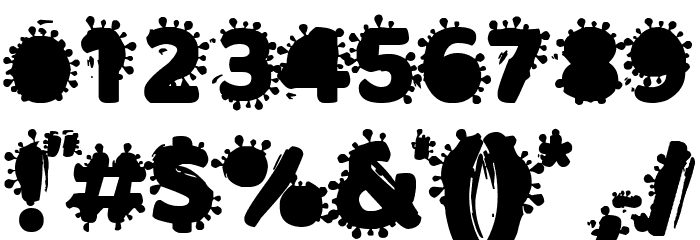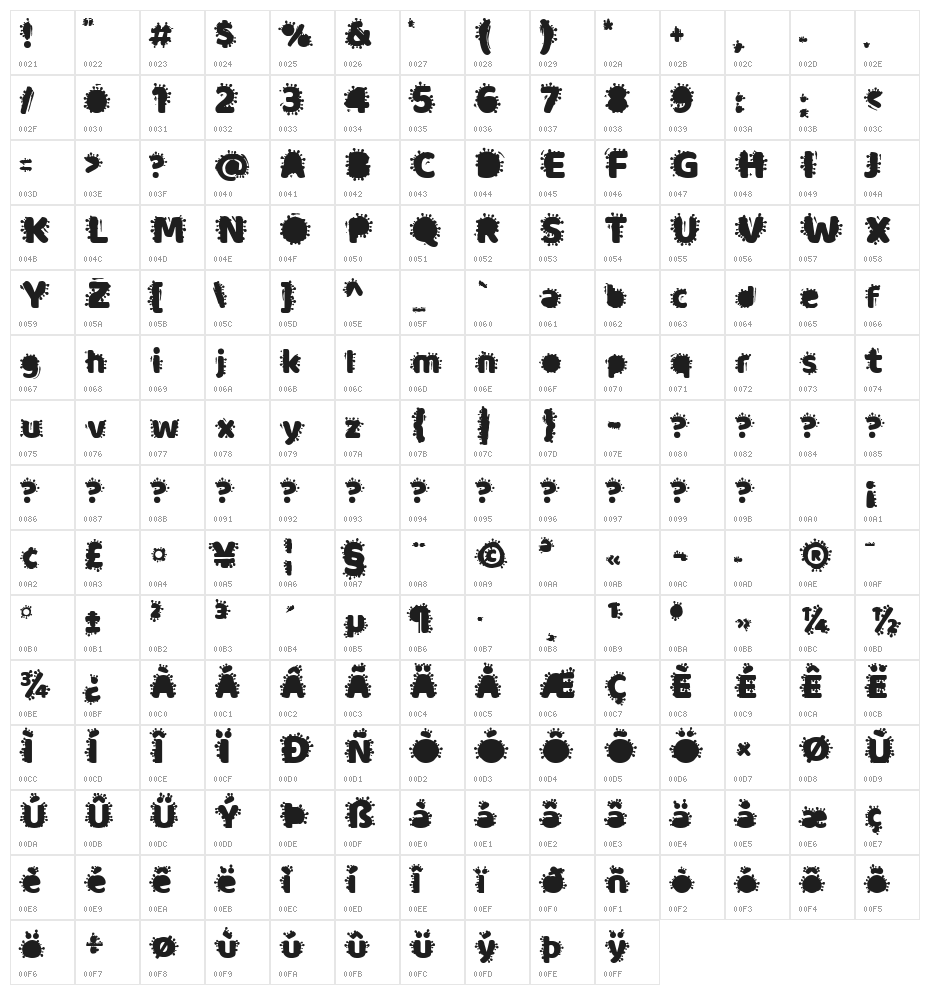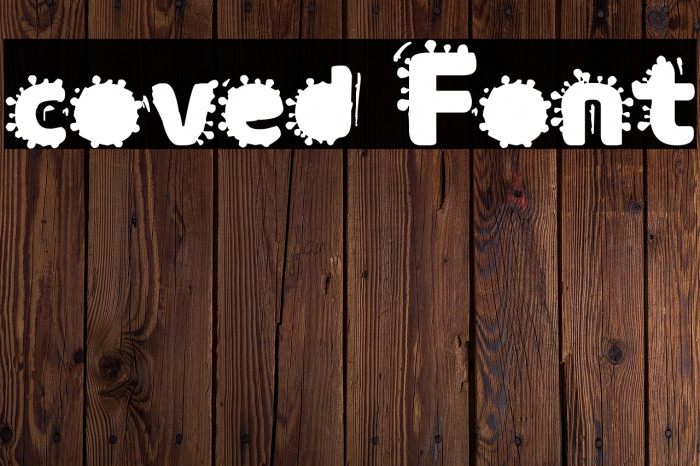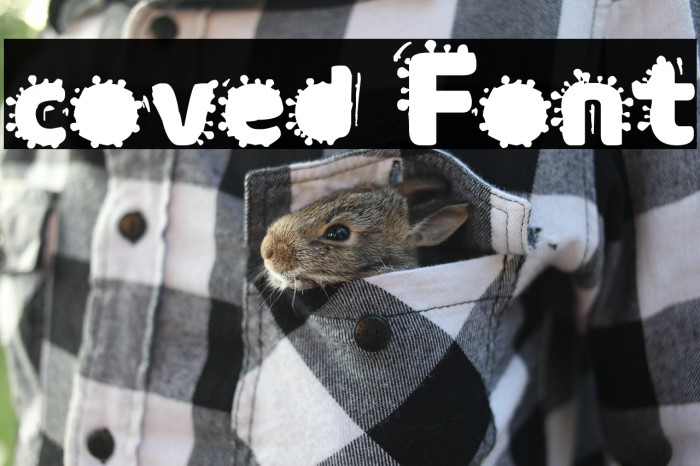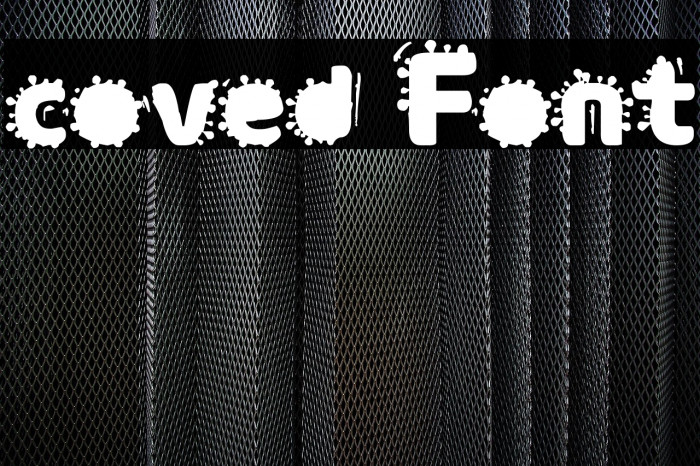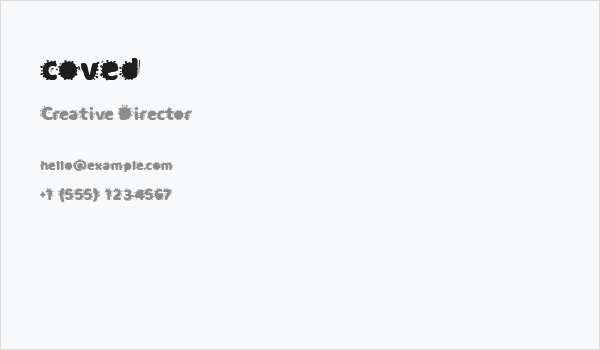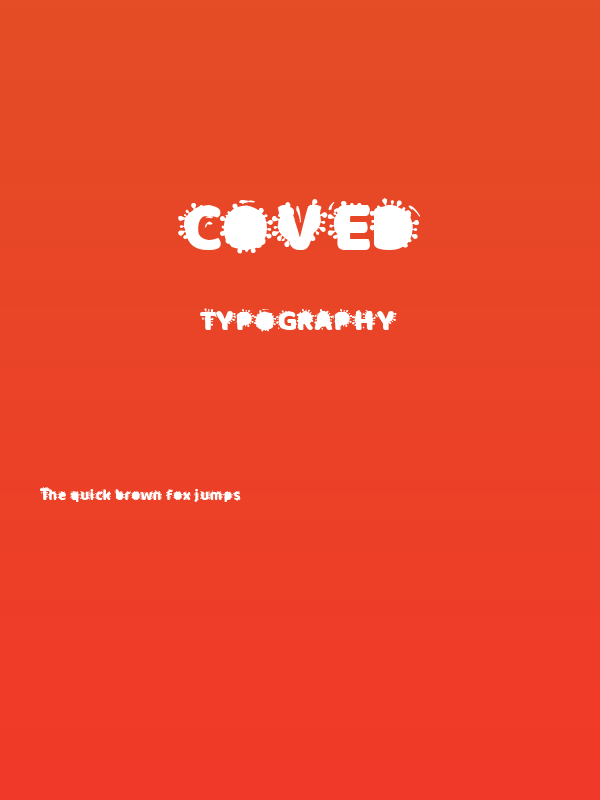
coved Font
coved Description
This font features a playful and unique design, with each character surrounded by a spiky, virus-like outline. The bold, rounded letters are filled with solid black, creating a strong visual impact. The design is reminiscent of a biological theme, making it suitable for projects that require a distinctive and thematic appearance. The uppercase and lowercase letters maintain a consistent style, while the numbers and special characters are equally adorned with the spiky motif. This font is ideal for creative and eye-catching designs.
| Proposed Projects | Ideal for posters, themed events, educational materials on biology, or any project needing a unique and eye-catching design. |